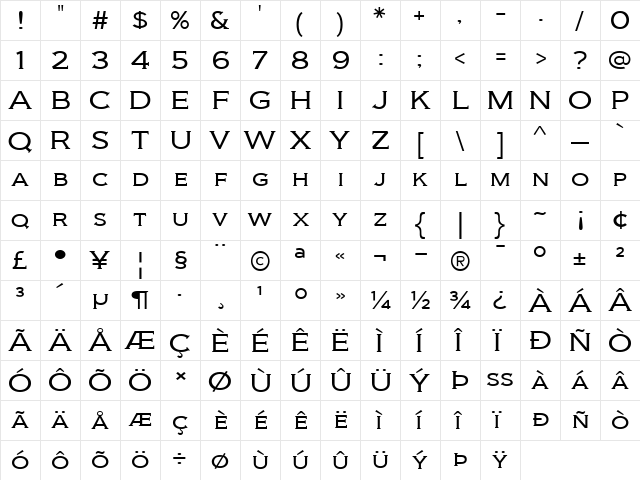
Biondi Light
Design Context for Biondi Typeface
Biondi takes a measured approach to typography — its balanced proportions and neutral character make it a reliable workhorse for both digital and print work. The delicate stroke weight brings airiness and refinement to layouts.
Pro Tip: Use Biondi in both headline and body roles to test its range before committing to a single application.